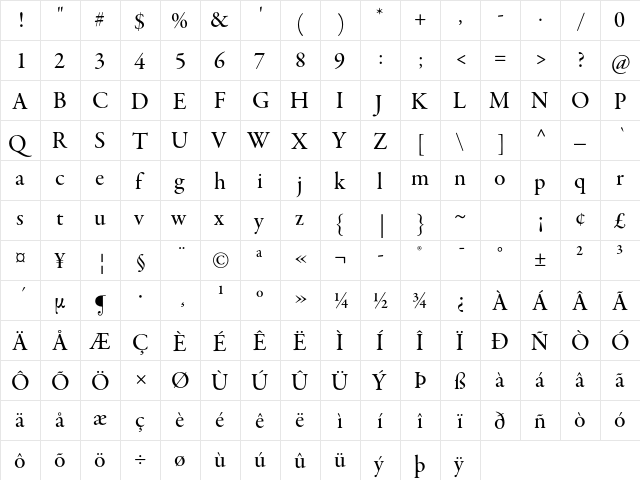
Garamond Premier Pro Medium Subhead
| Style | Medium Subhead |
| Designer | Robert Slimbach |
Design Context for Garamond Premier Pro Typeface
Garamond Premier Pro takes a measured approach to typography — its balanced proportions and neutral character make it a reliable workhorse for both digital and print work.